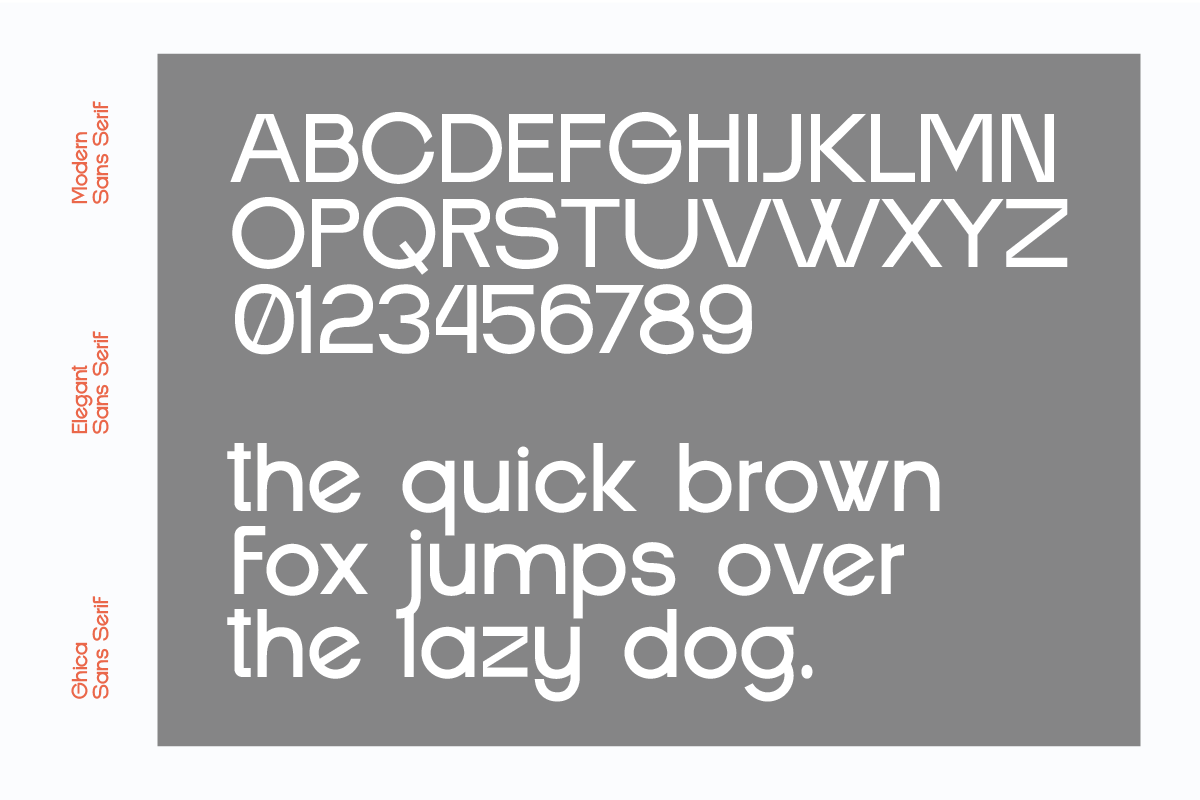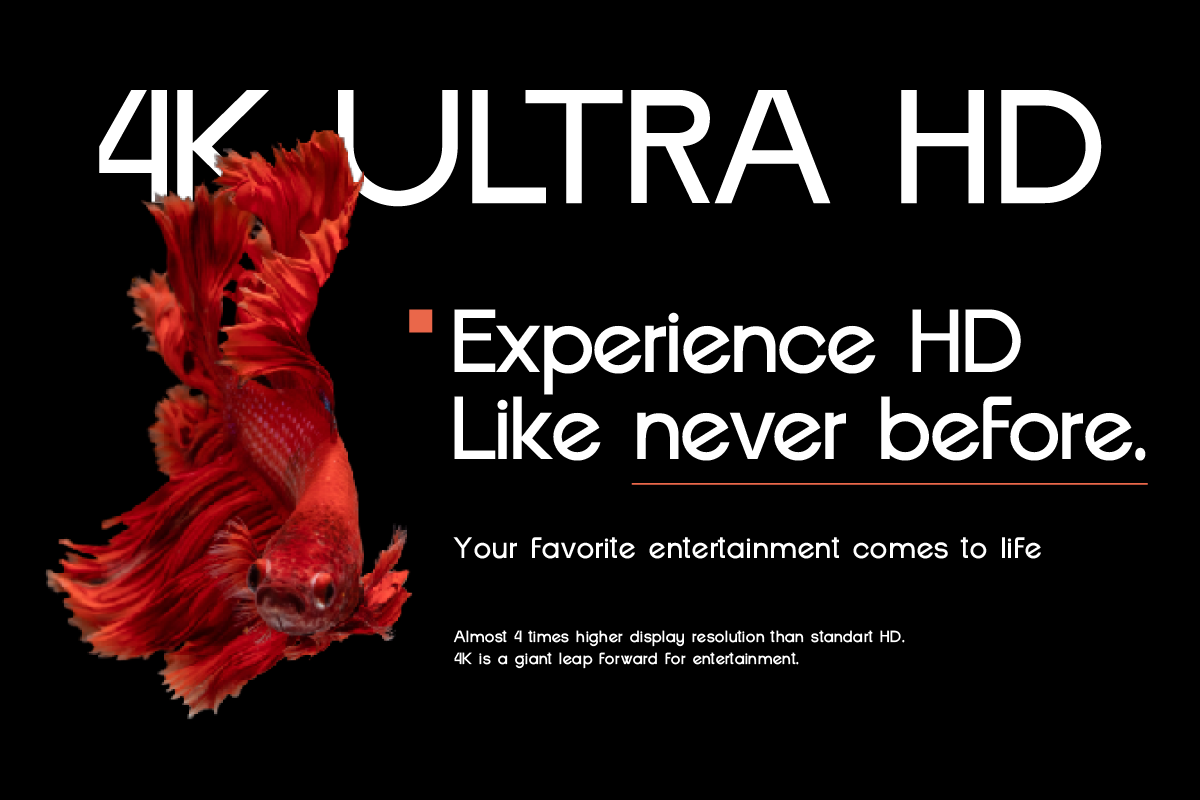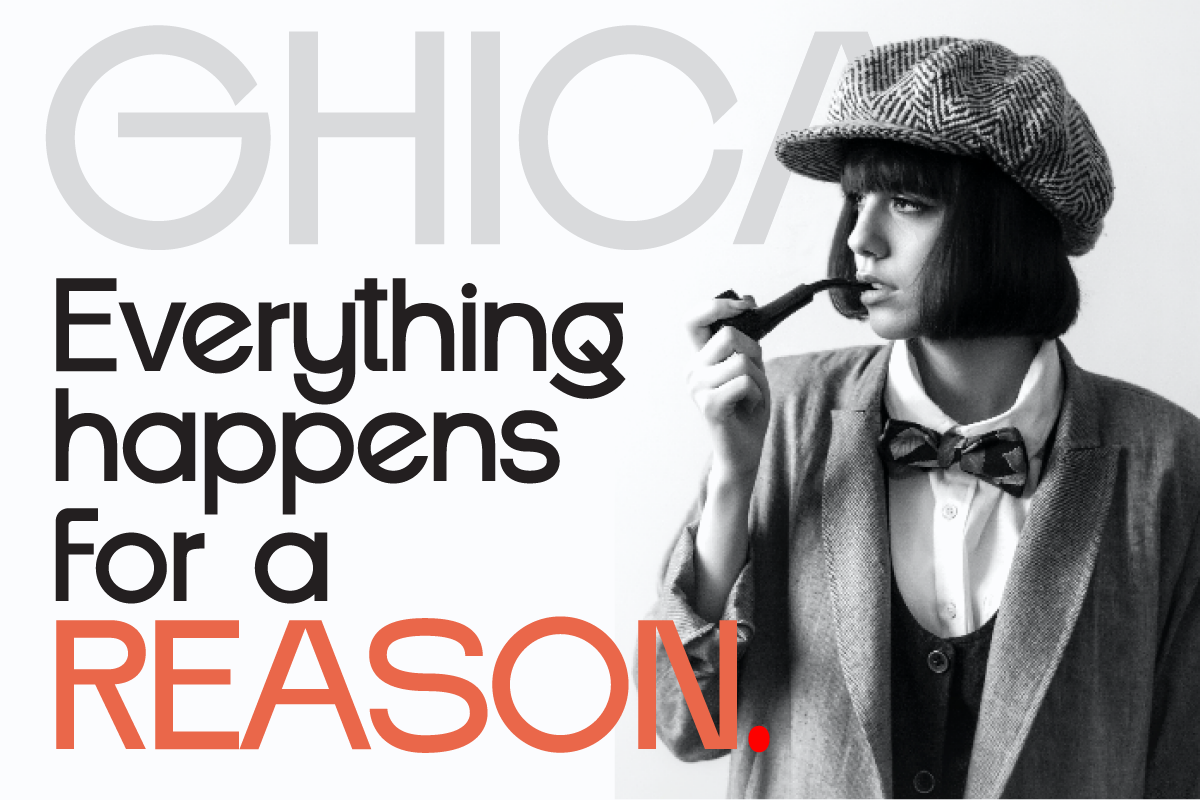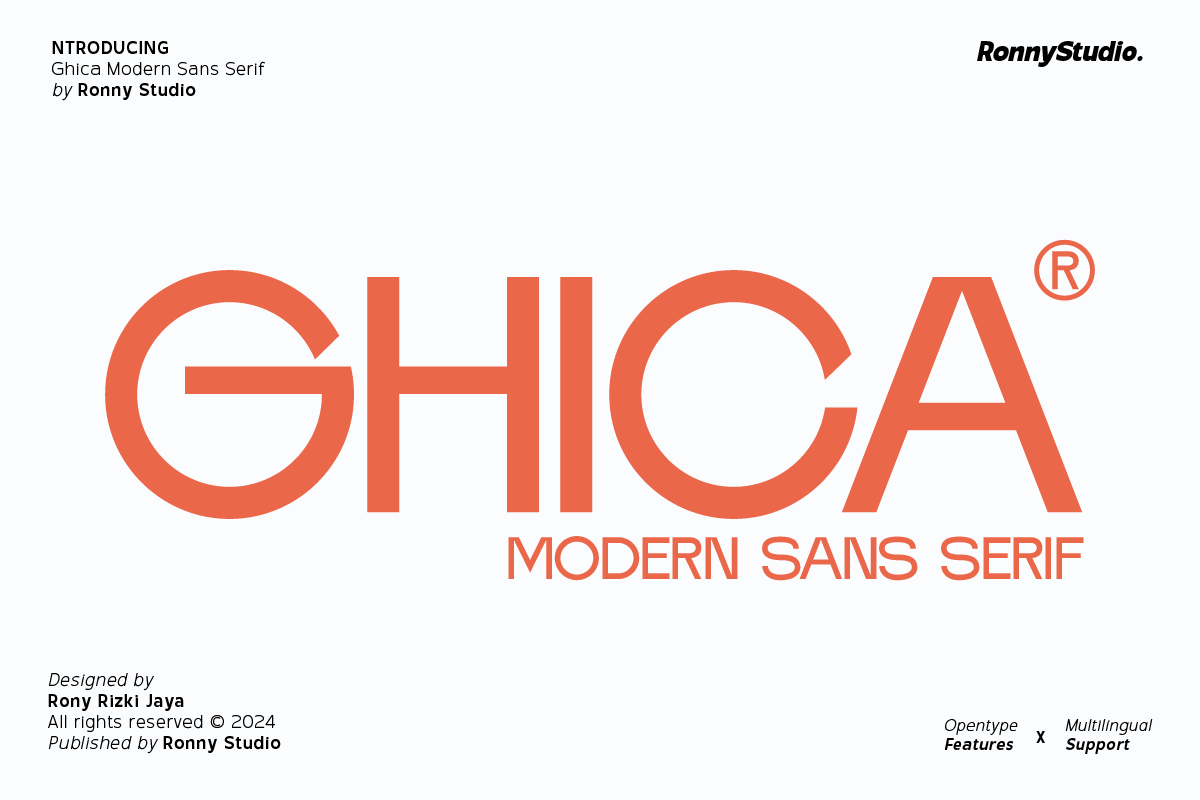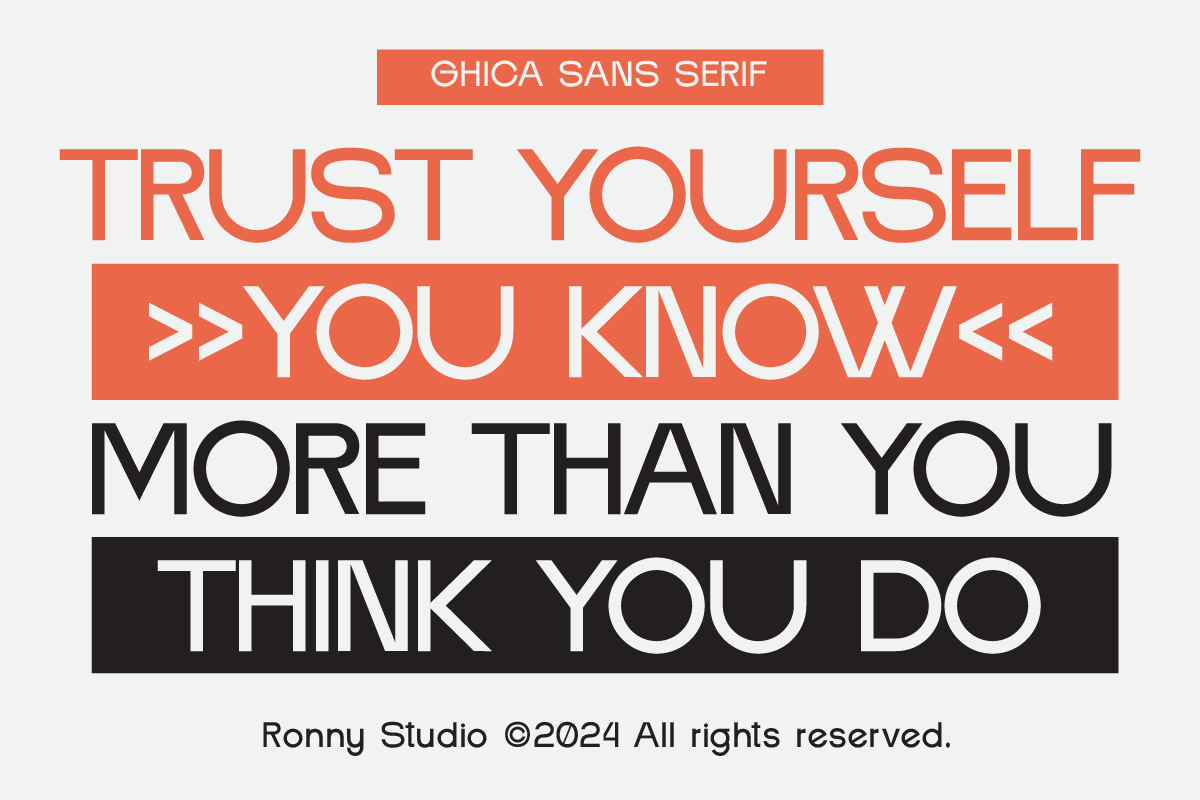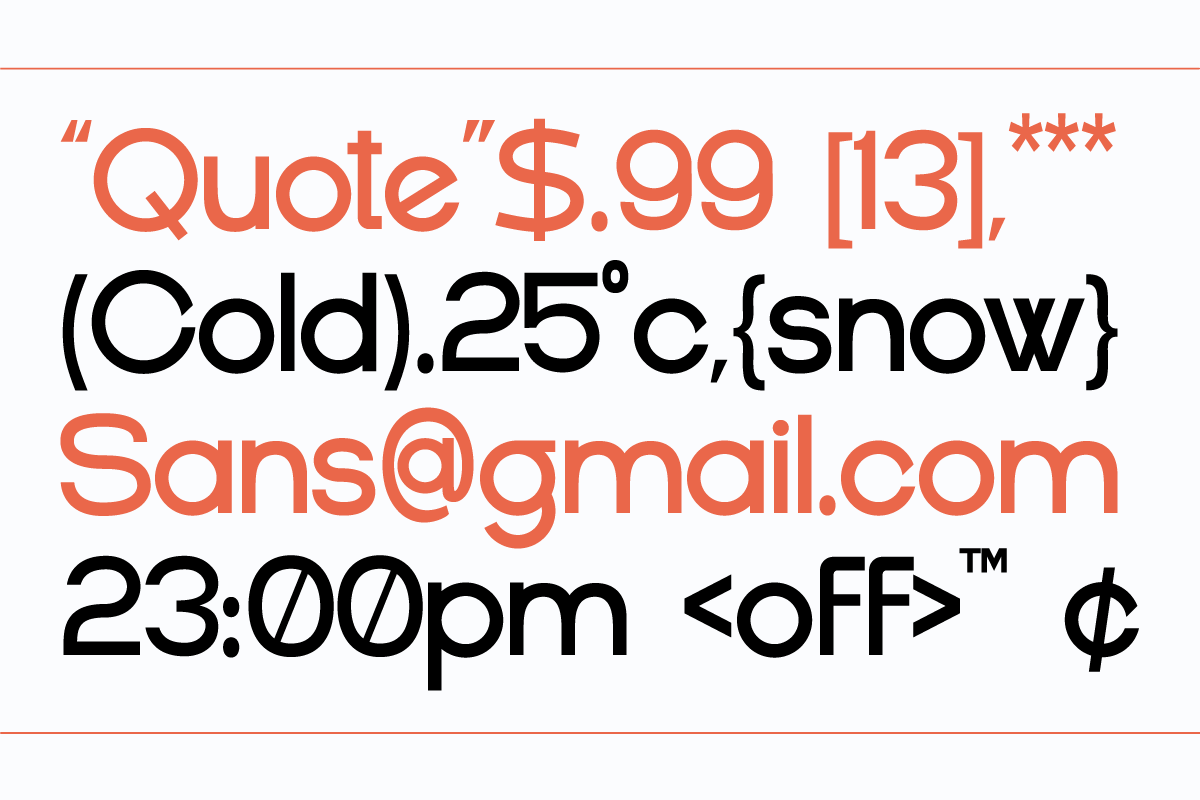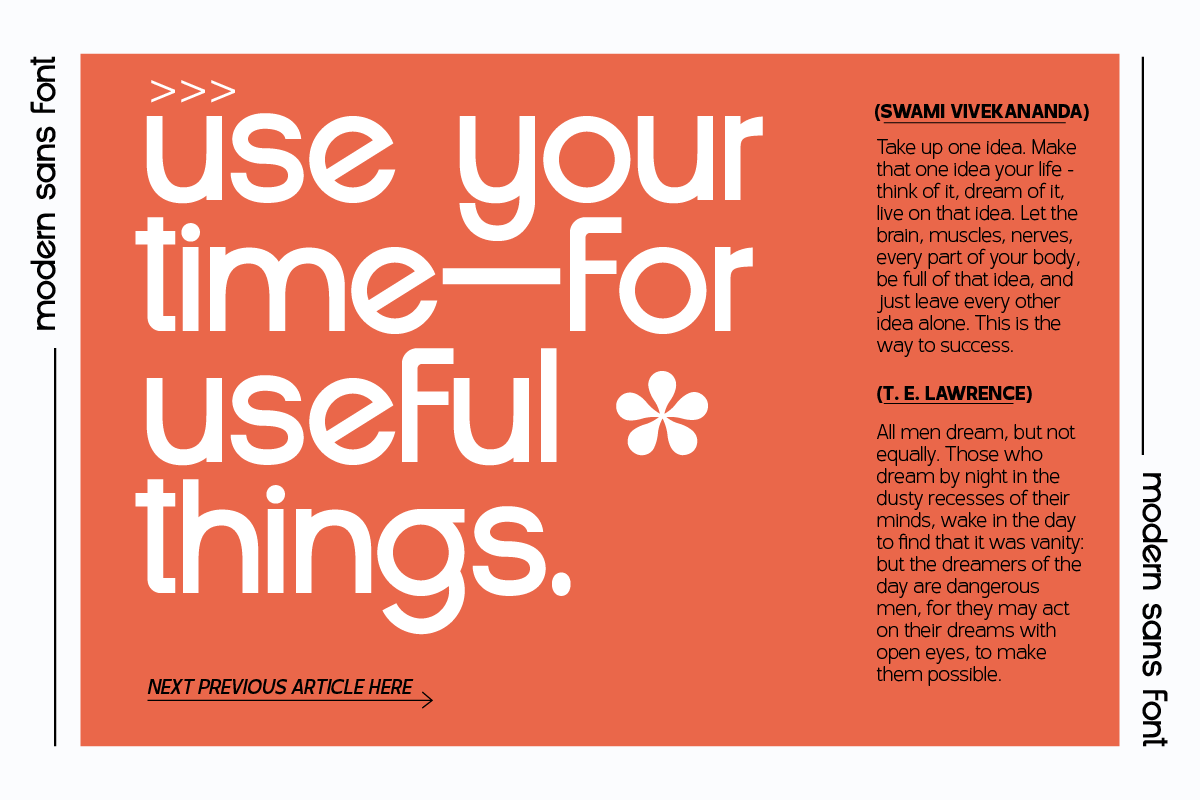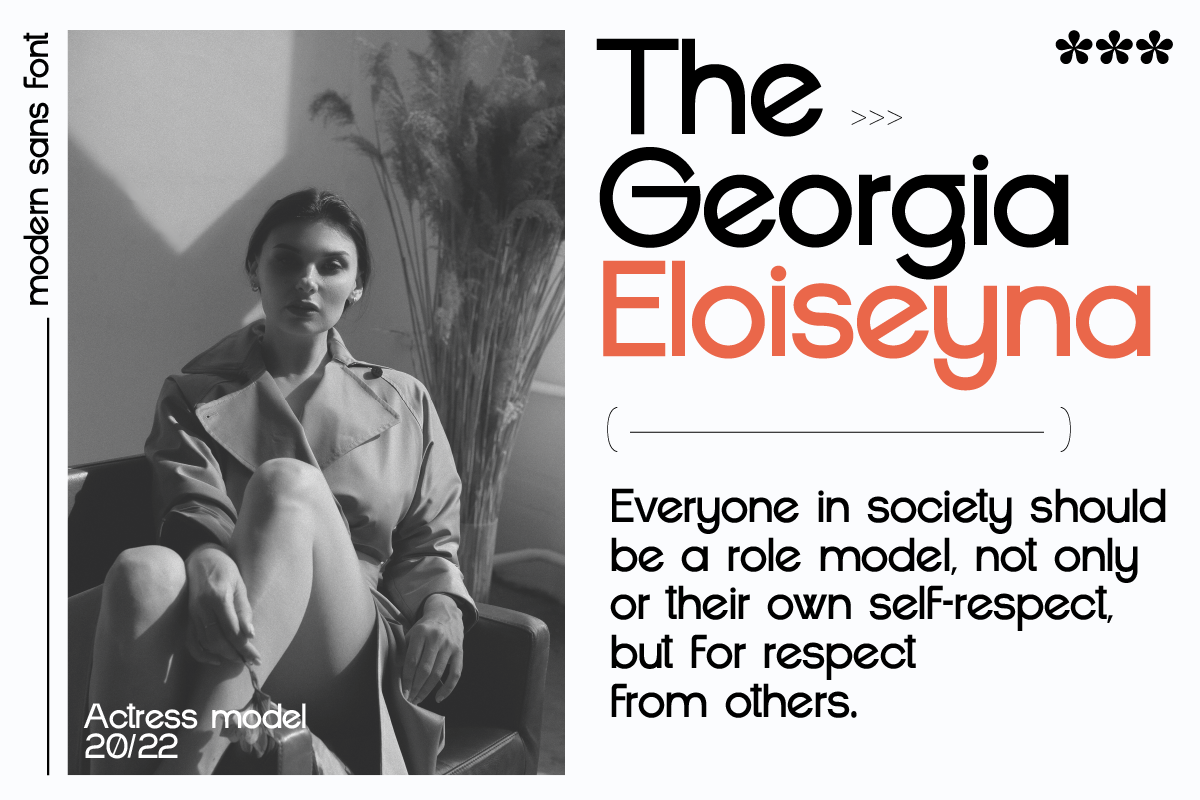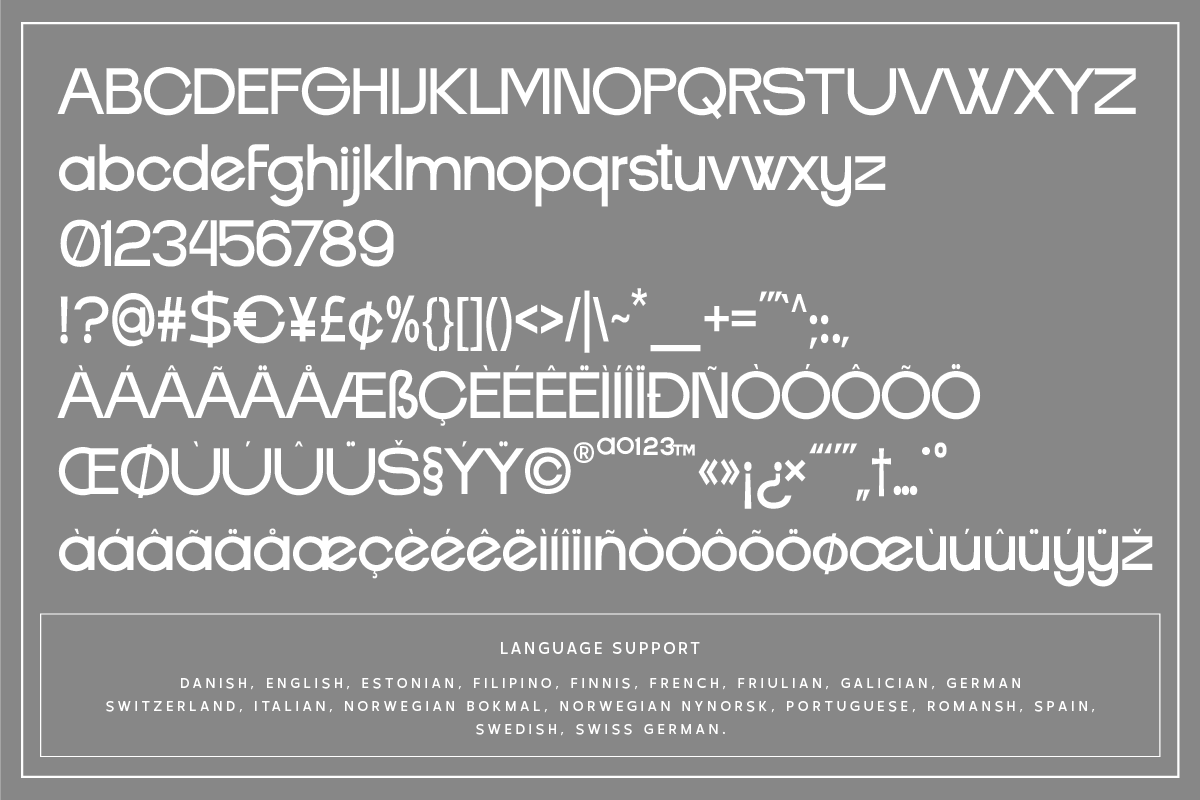
Ghica - Modern Sans Serif Font
Ghica is a modern sans-serif font. With a clean, minimalist and elegant design, Ghica offers a modern and professional impression, suitable for various design needs such as branding, posters, web design and print media.
• Uppercase & Lowercase
• Number & Punctuation
• Ligature & Alternate
• Multilingual Support